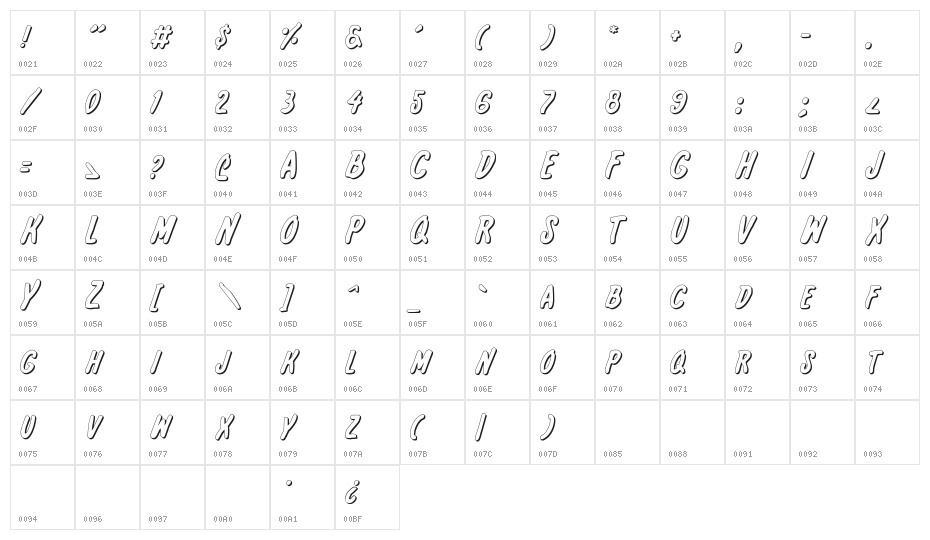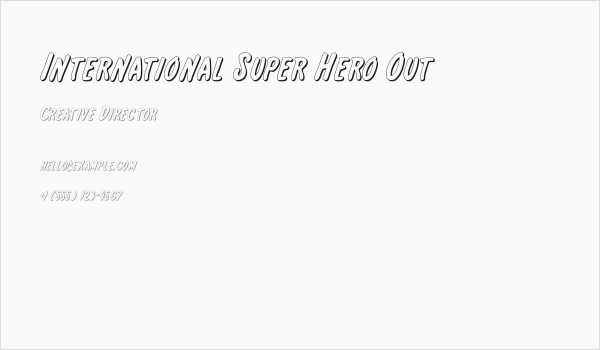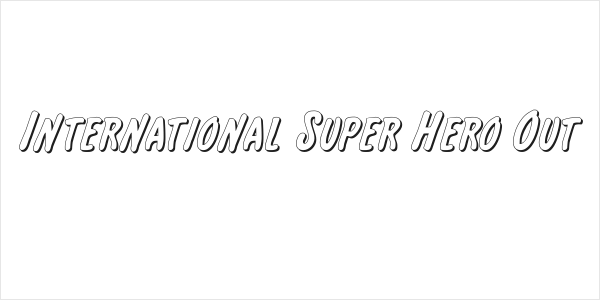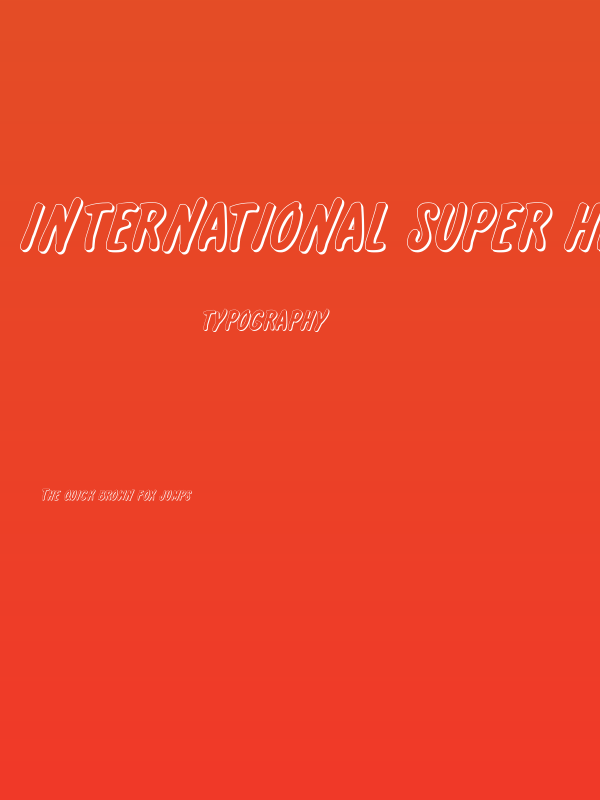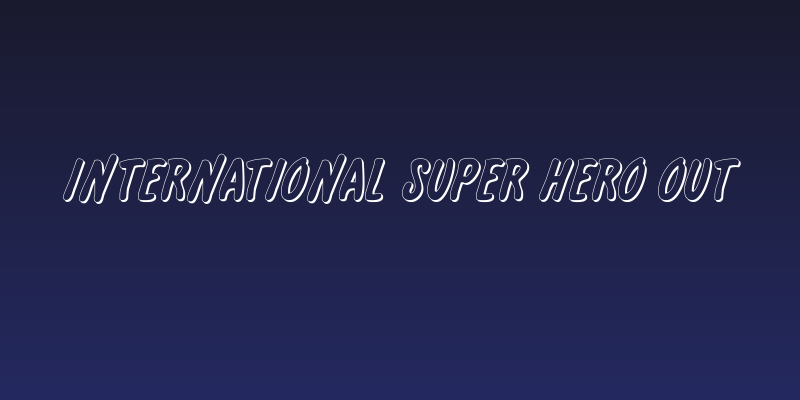
International Super Hero Out Font
International Super Hero Out Description
This font features a bold, playful style with a comic book flair. The letters are outlined, giving them a three-dimensional appearance that adds depth and character. Each character is slightly slanted, adding a dynamic and energetic feel. The strokes are thick and consistent, providing a strong visual impact. The font maintains a uniform width across all characters, ensuring readability while preserving its unique style. The numbers and special characters follow the same design principles, making them cohesive with the alphabet. This font is ideal for projects that require a fun and engaging aesthetic.
| Overall Style | Playful, Comic |
| Proposed Projects | Ideal for comic books, children's books, posters, and playful branding. |